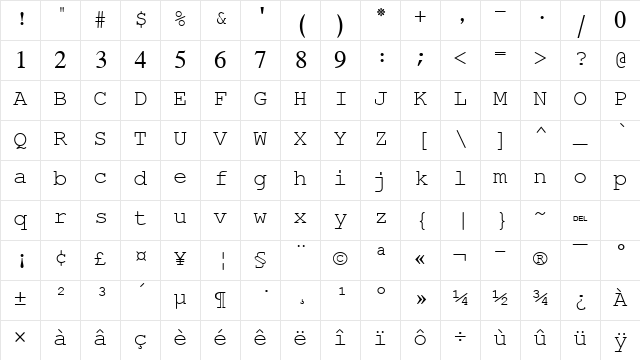
Simplified Arabic Fixed Regular
Design Context for Simplified Arabic Fixed
Simplified Arabic Fixed is a composed and adaptable typeface that performs quietly and consistently across a wide range of design contexts.